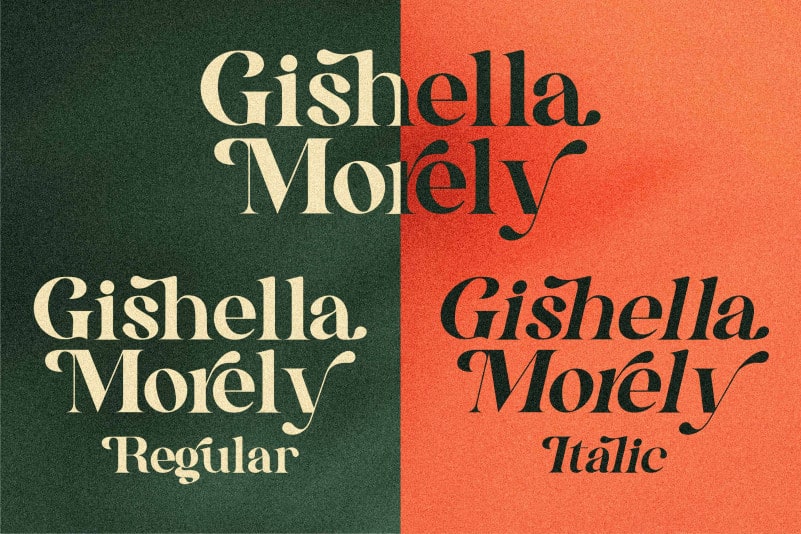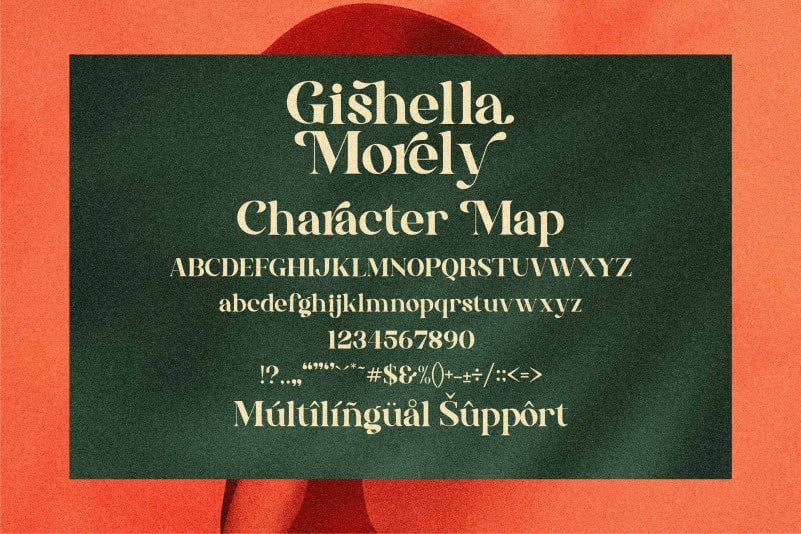
Gishella Morely Serif Font
Gishella Morely Serif Font is a stylish and bold serif font. This versatile script font has a wide spectrum of applications ranging from greeting cards to headlines and is guaranteed to add a romantic feel to your next project.